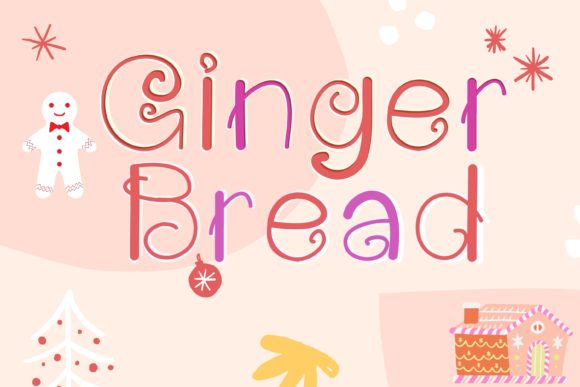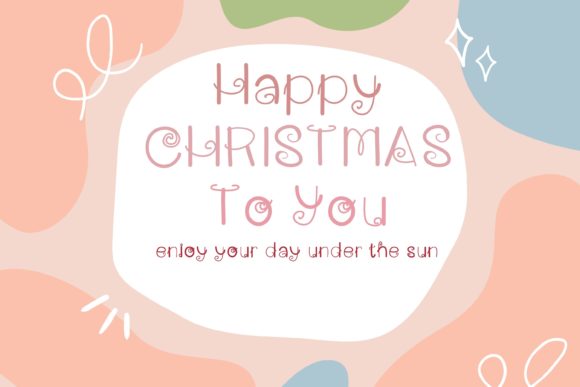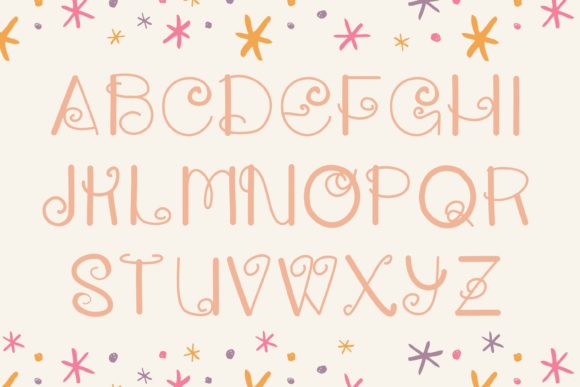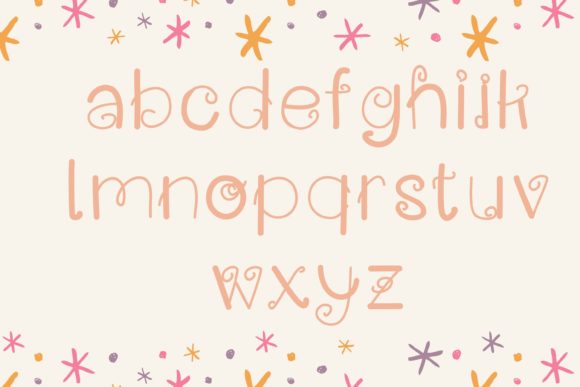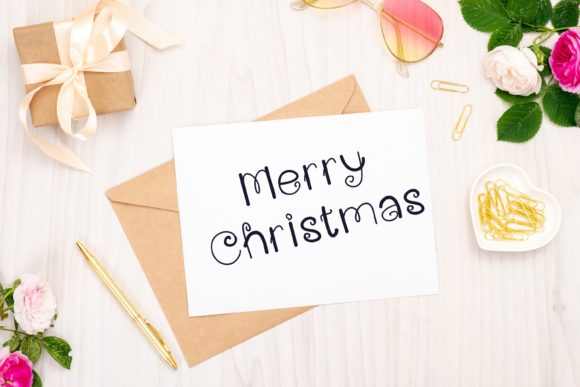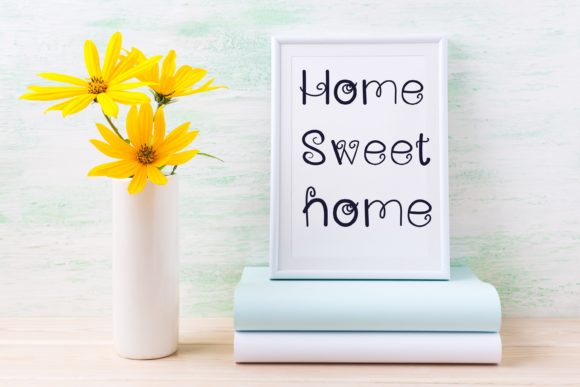
Ginger Bread Font
About Ginger Bread Font
Ginger Bread is a sweet and whimsical handwritten font. Add it to your Christmas letters , cards or decorations, and notice how easily they stand out.